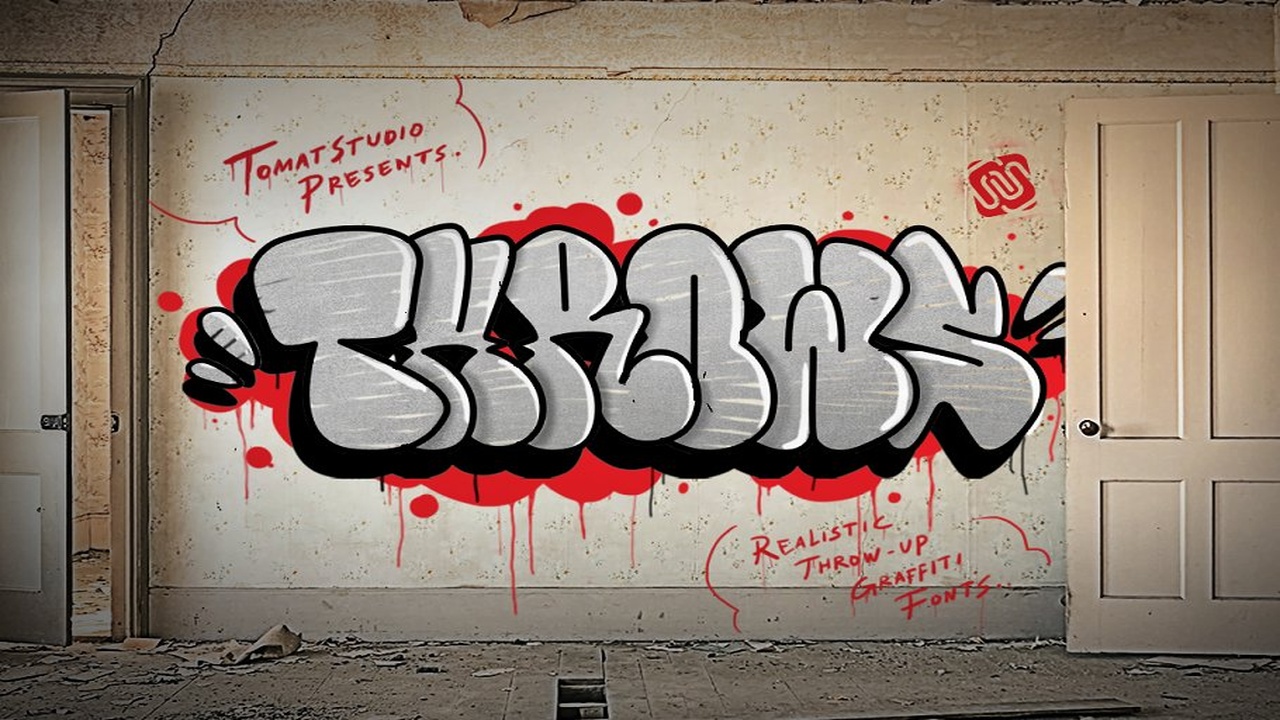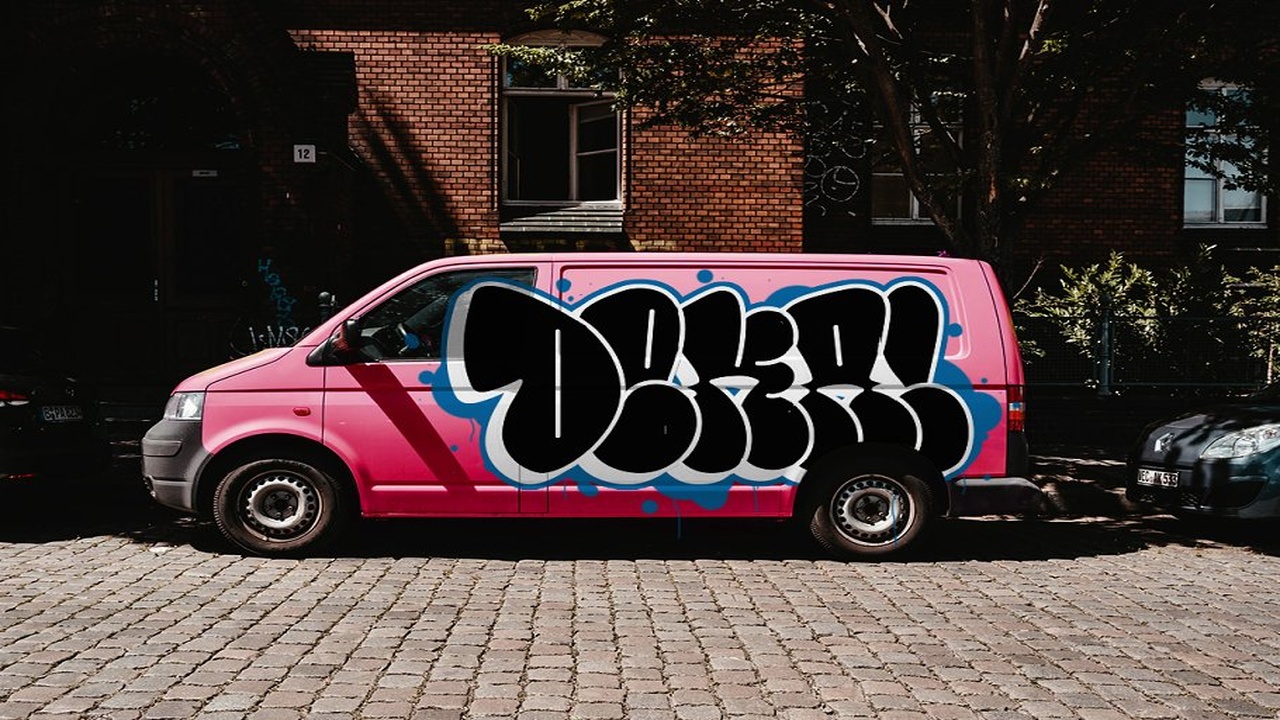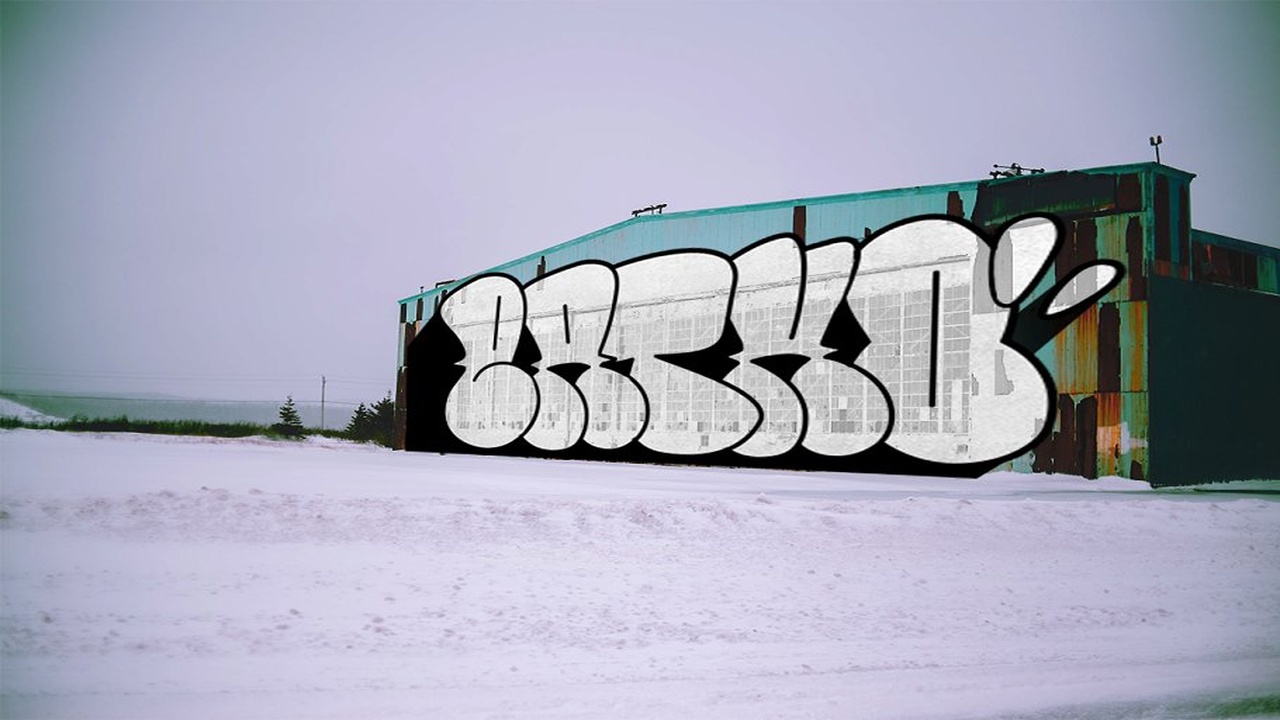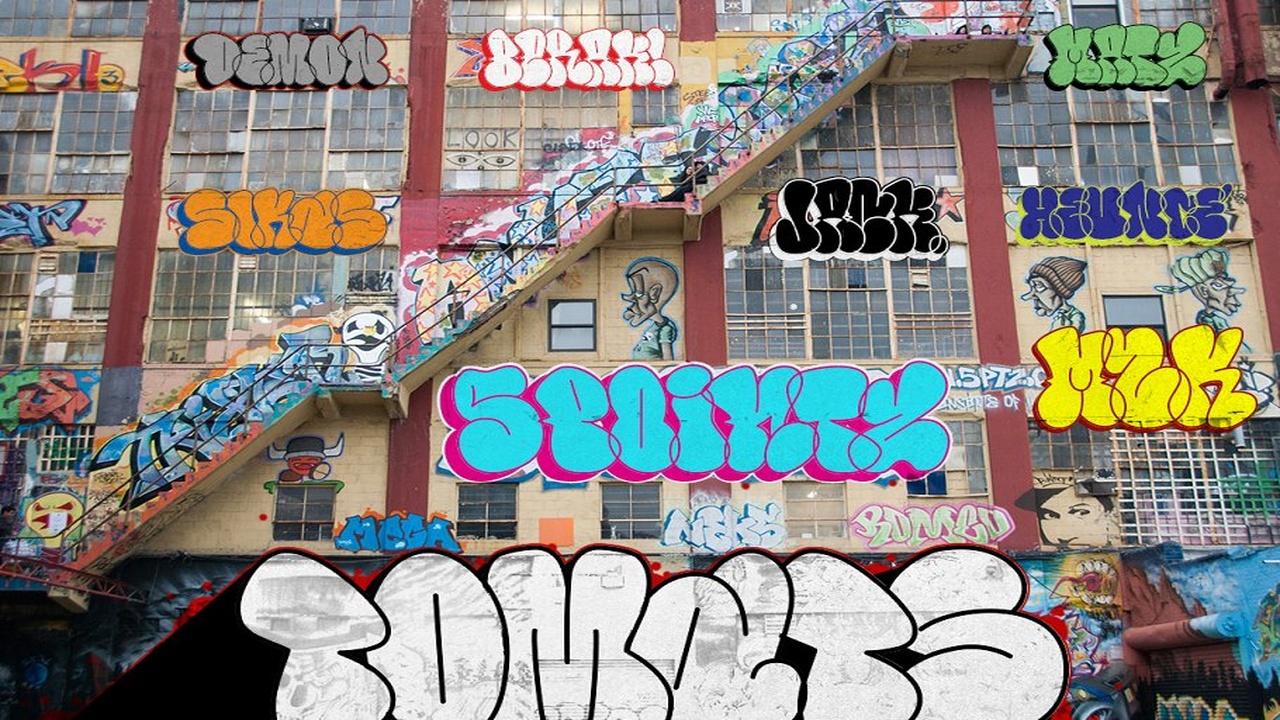
About the Graffiti Inspired Throws Font
This is not an ordinary fonts, this is how the real throw up graffiti come into fontype! if you want real throw ups style graffiti fonts, this is the answer! because this is pure from my real graffiti eperiences around the streets, Kerning, spacing i adjust more tight, similar with the real throw up in the streets, The intersection between letter also you can erase it or leave it collide, depends of whats your styles, see our tutorial in the picture slides